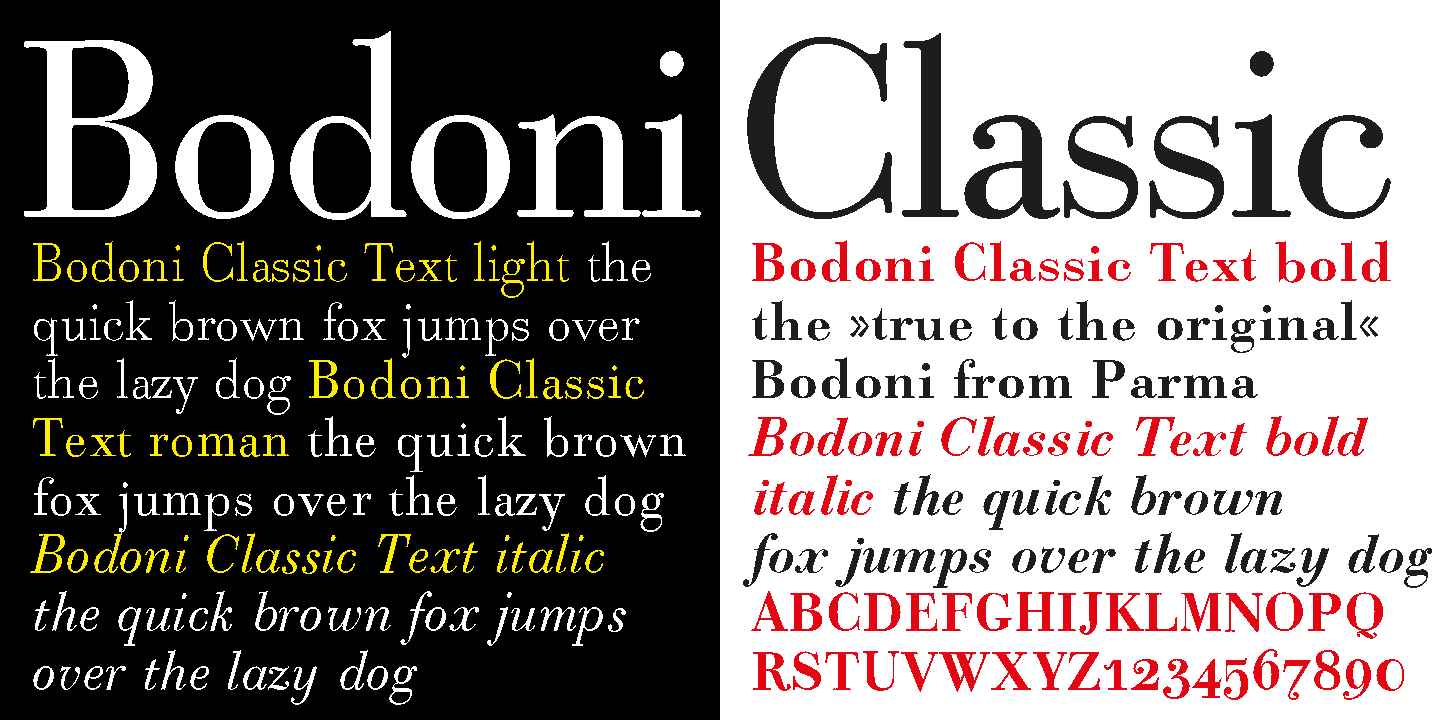
Bodoni Classic Text Font is perfect for luxury fashion magazines, high-end book publications, elegant wedding invitations, prestigious academic journals, sophisticated marketing materials, classical music programs, upscale restaurant menus, and distinguished corporate communications.
This font is exciting because it represents the pinnacle of typographic elegance with dramatic contrast and refined letterforms that have graced the world's most prestigious publications for centuries. The Bodoni Classic Text Font embodies timeless sophistication and editorial excellence, transforming ordinary text into distinguished statements that command respect and convey intellectual authority with unmatched classical beauty.
The Bodoni Classic Text Font family includes classical variations such as Regular, Bold, Italic, Bold Italic, Light, Medium, Condensed, and Extended versions, providing luxury designers with comprehensive tools to create prestigious typography that honors centuries of printing excellence and editorial tradition across all sophisticated applications.
Achieve typographic excellence with Bodoni Classic Text Font Free Download that brings classical elegance to every prestigious design project. This masterfully crafted typeface combines historical authenticity with contemporary functionality, making it perfect for luxury brands, publishing houses, and cultural institutions requiring the highest levels of sophistication and editorial credibility. The font's dramatic character design ensures optimal readability for extended text while maintaining the distinguished presence that premium content demands. Whether you're designing luxury publications, creating high-end marketing materials, or developing communications for prestigious institutions, Bodoni Classic Text Font delivers the authoritative typography that establishes credibility and sophistication. Its versatile design works beautifully across both digital and print media while preserving the classical refinement that makes luxury communications feel genuinely prestigious and worthy of the most discerning audiences who appreciate typographic excellence and the kind of editorial sophistication that defines the world's most respected publications and cultural institutions.